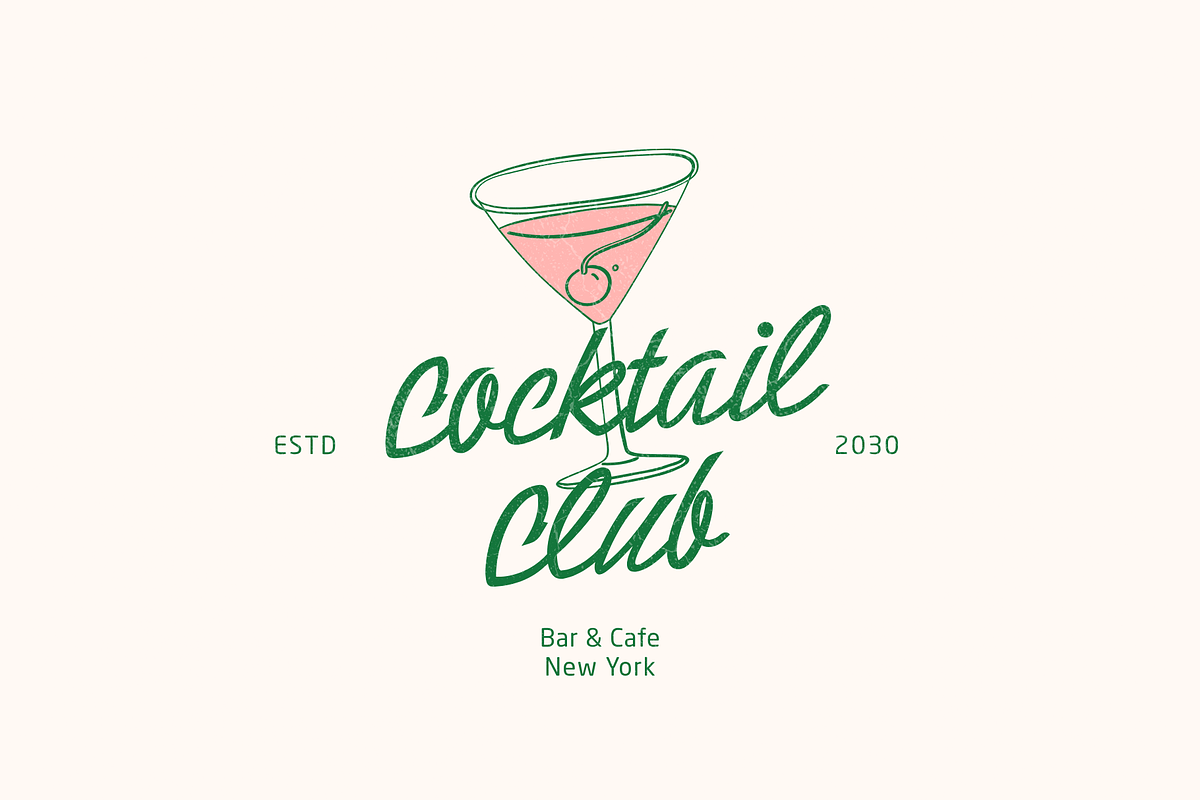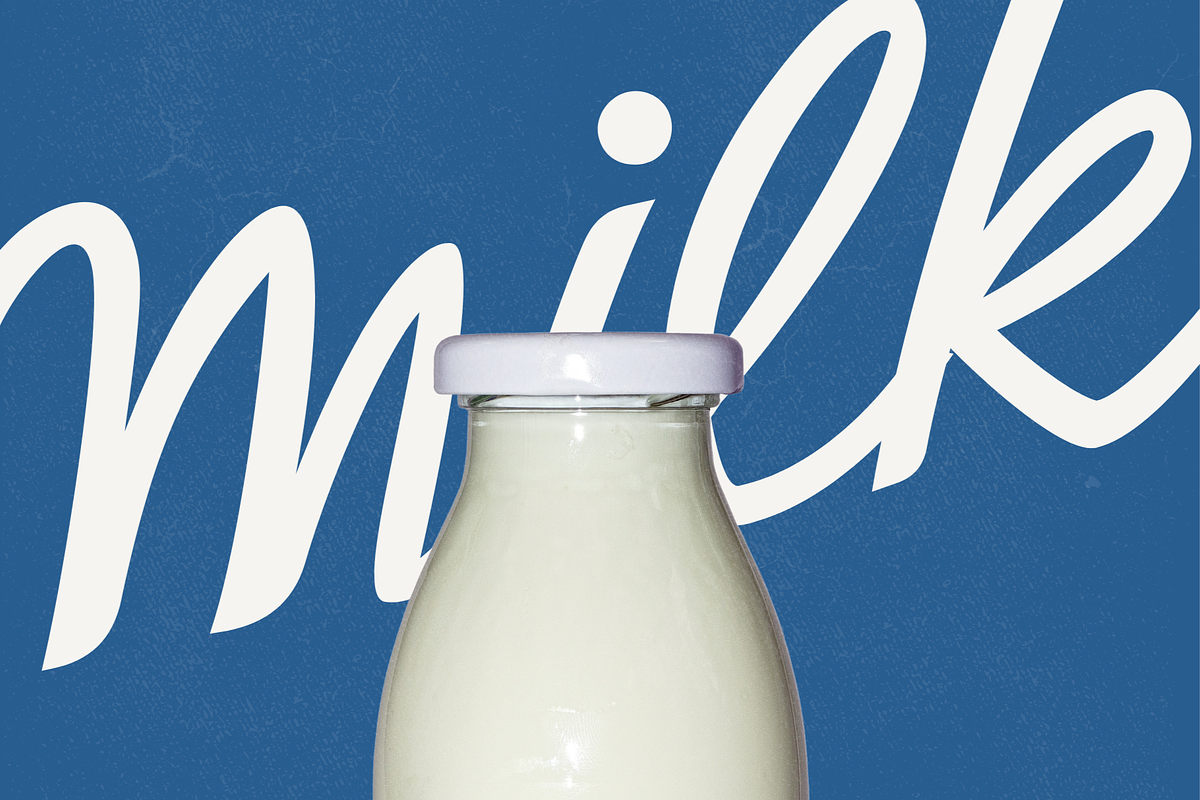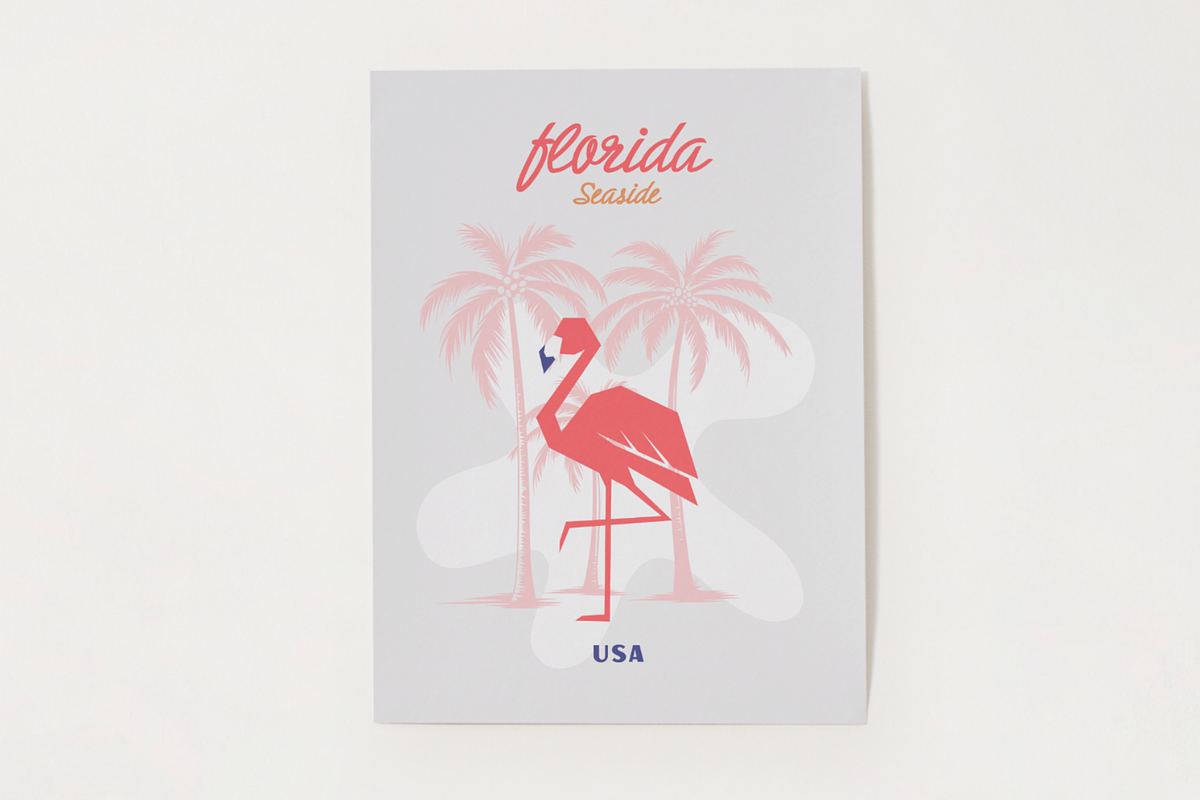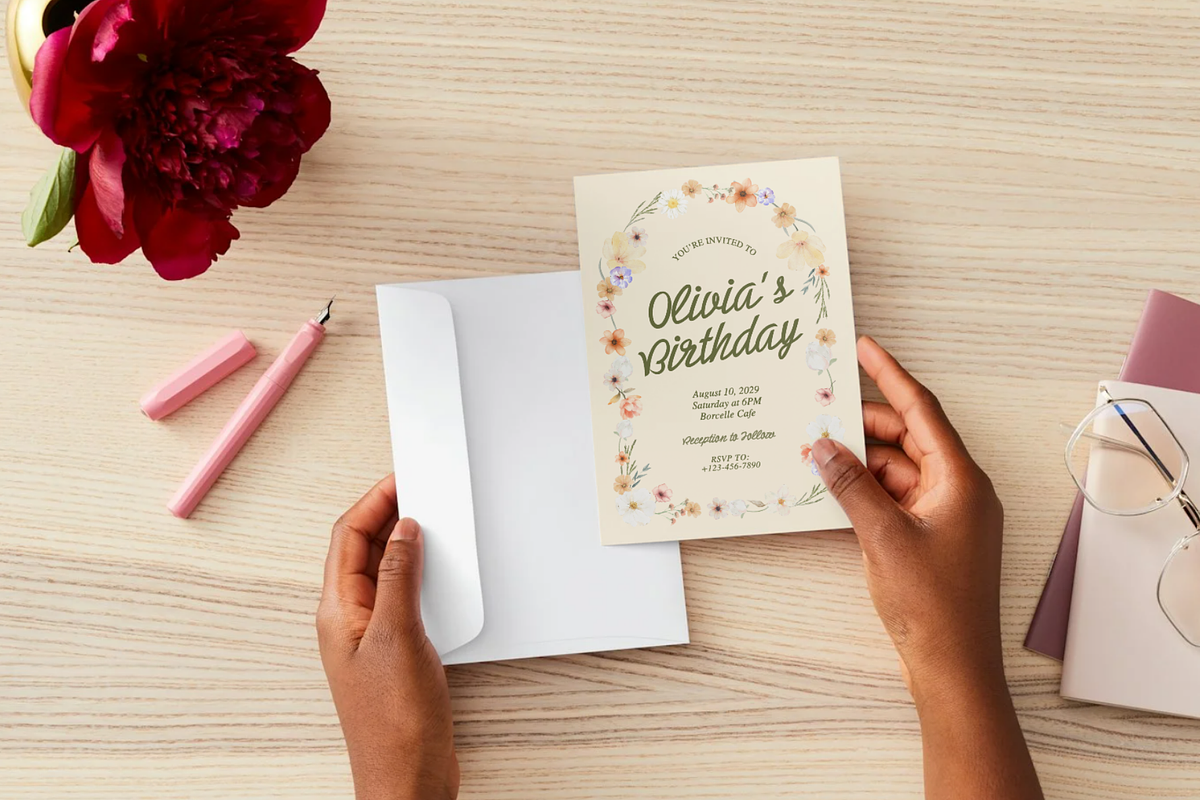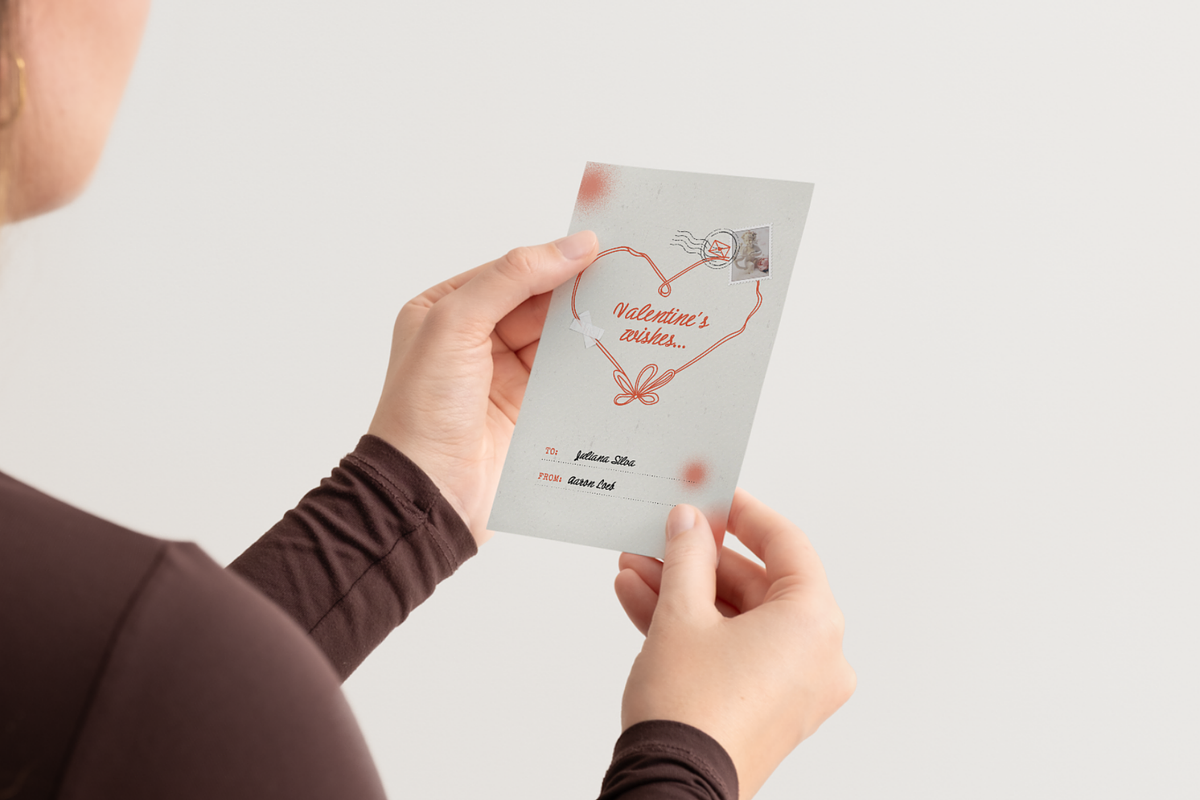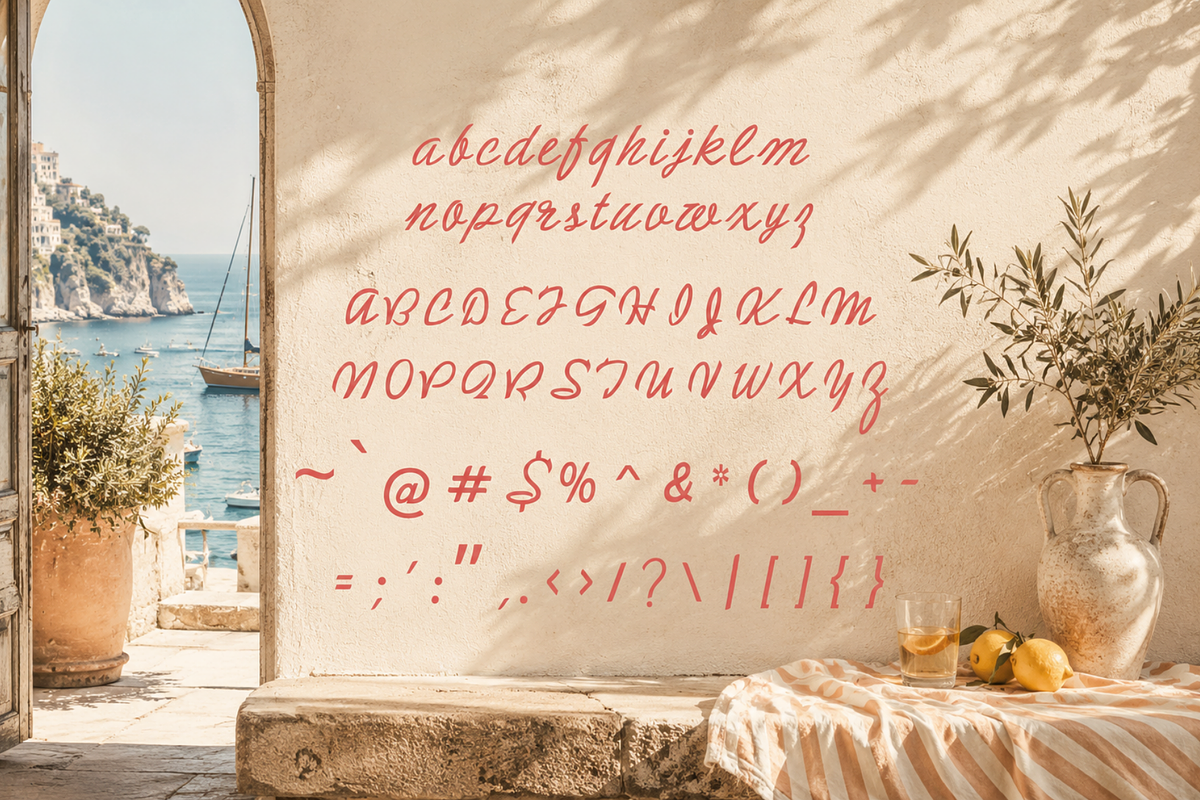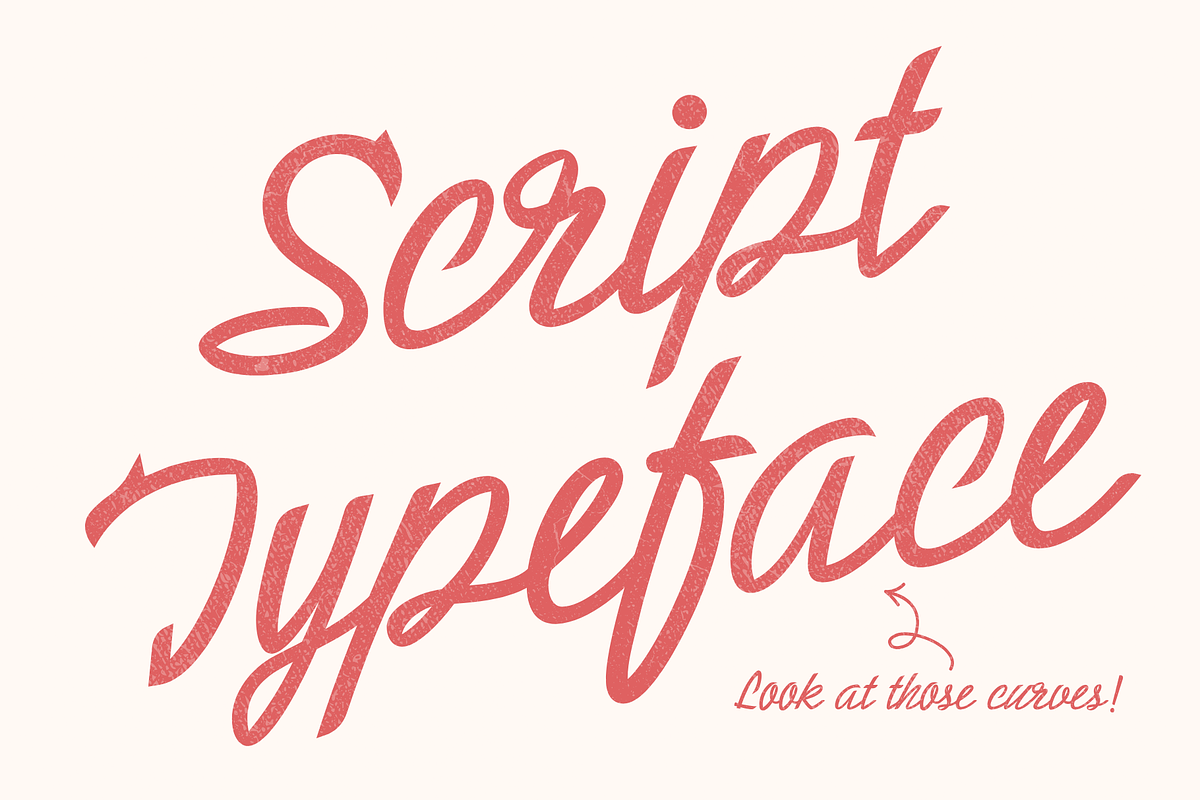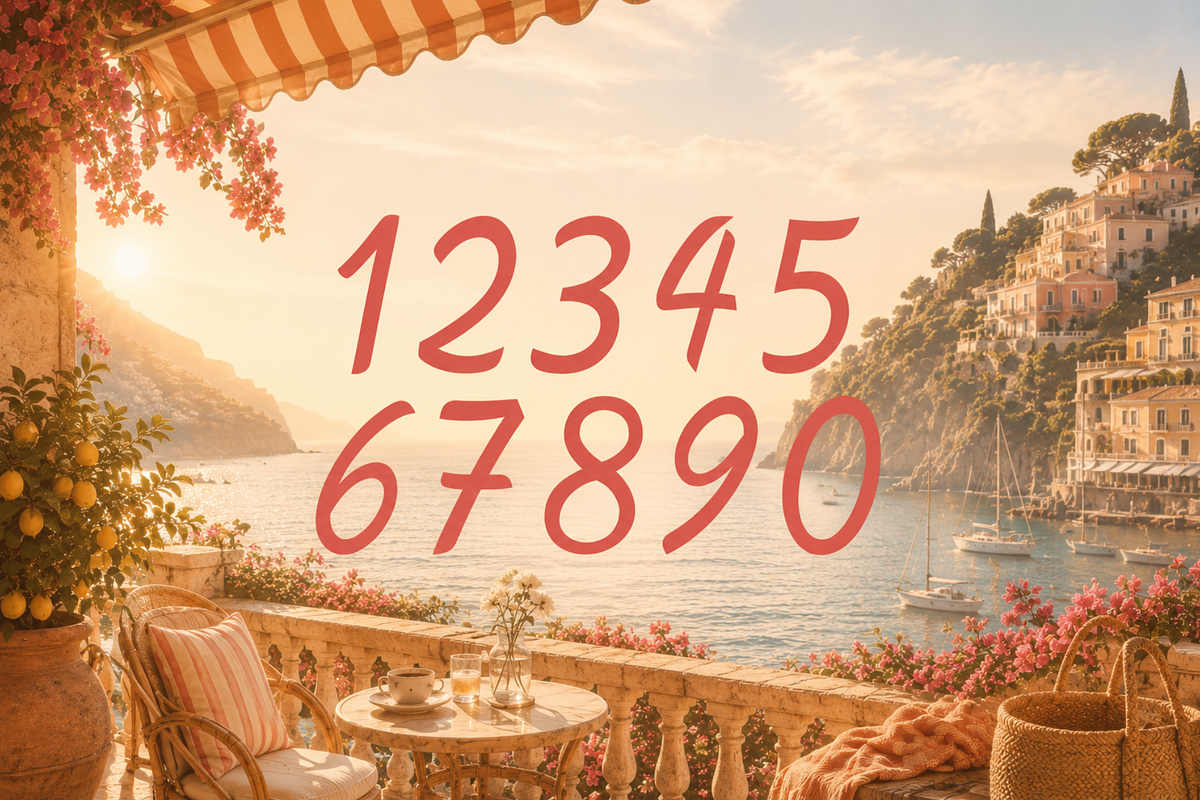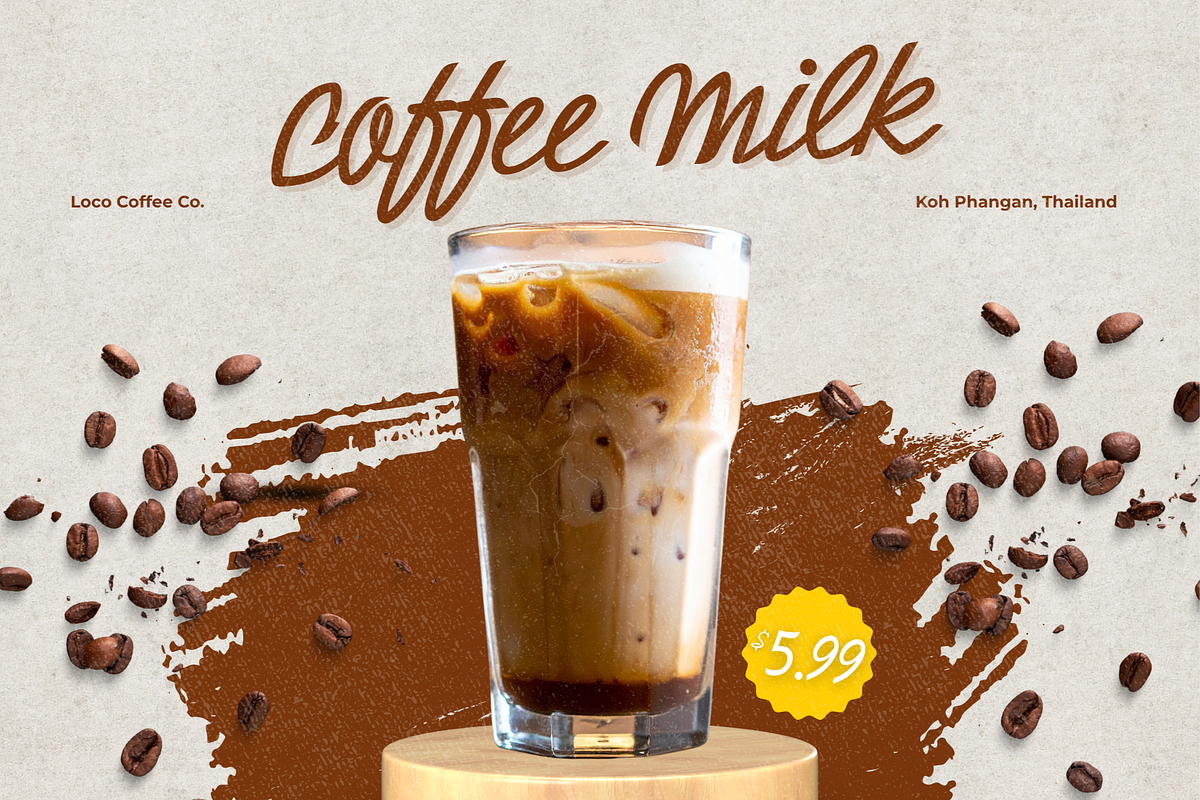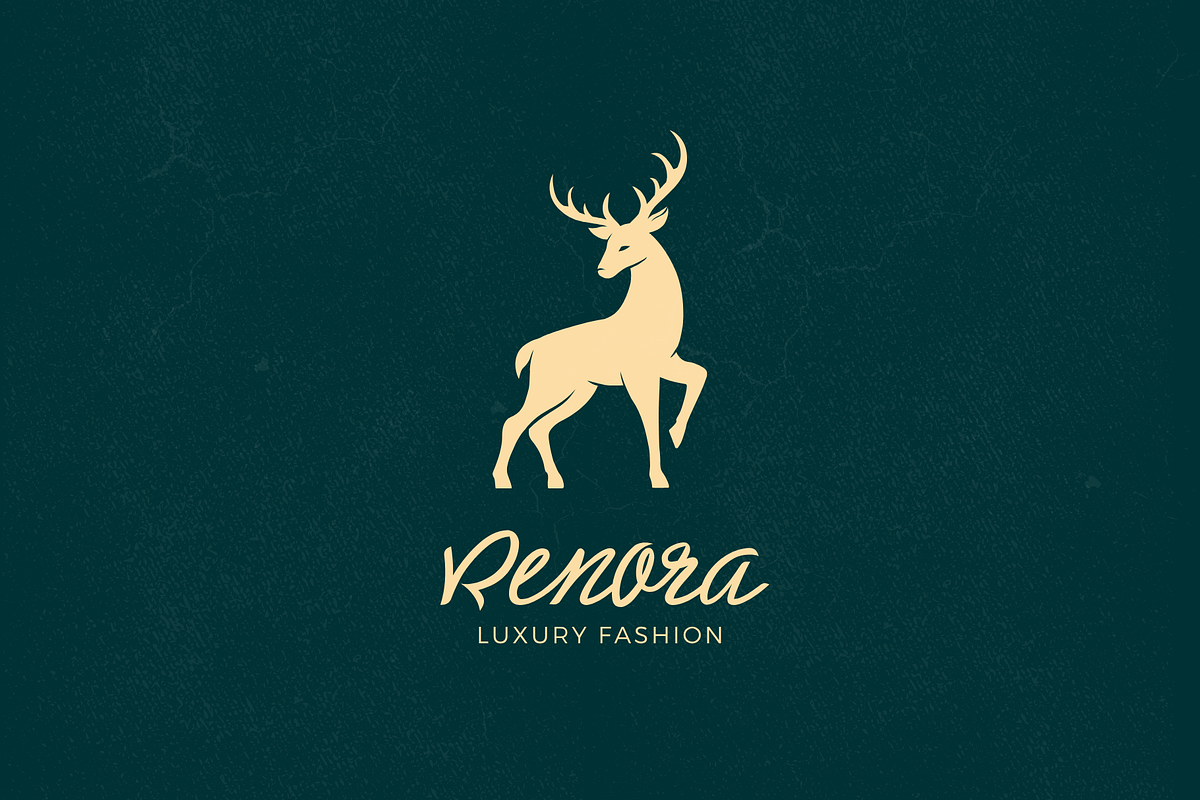
Sunset Marina - Fancy Vintage Script
Meet Sunset Marina, a graceful vintage script typeface inspired by sun-drenched Mediterranean coastlines, elegant Italian marinas, and the timeless romance of the Riviera. Its sweeping curves, confident strokes, and beautifully flowing letterforms bring an effortless sense of luxury to every word.
Sunset Marina feels both nostalgic and refined, combining classic vintage lettering with a polished, contemporary finish. Its expressive shapes create memorable typography that looks equally captivating across large headlines, sophisticated logos, editorial layouts, and stylish packaging.
Perfect for luxury branding, boutique identities, coastal businesses, resorts, restaurants, wedding stationery, travel posters, product labels, websites, social media graphics, apparel, and more, Sunset Marina turns ordinary text into something warm, romantic, and unmistakably elegant.
Whether you are designing a sun-soaked travel campaign, an upscale beauty brand, a seaside restaurant logo, or an unforgettable invitation, Sunset Marina brings the beauty of an endless Mediterranean summer to your creative work.